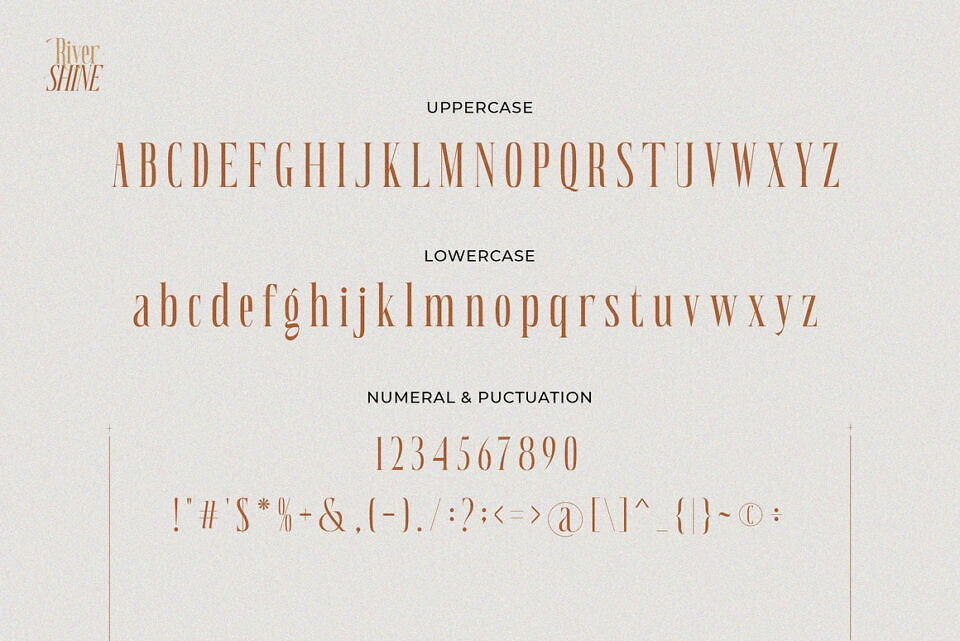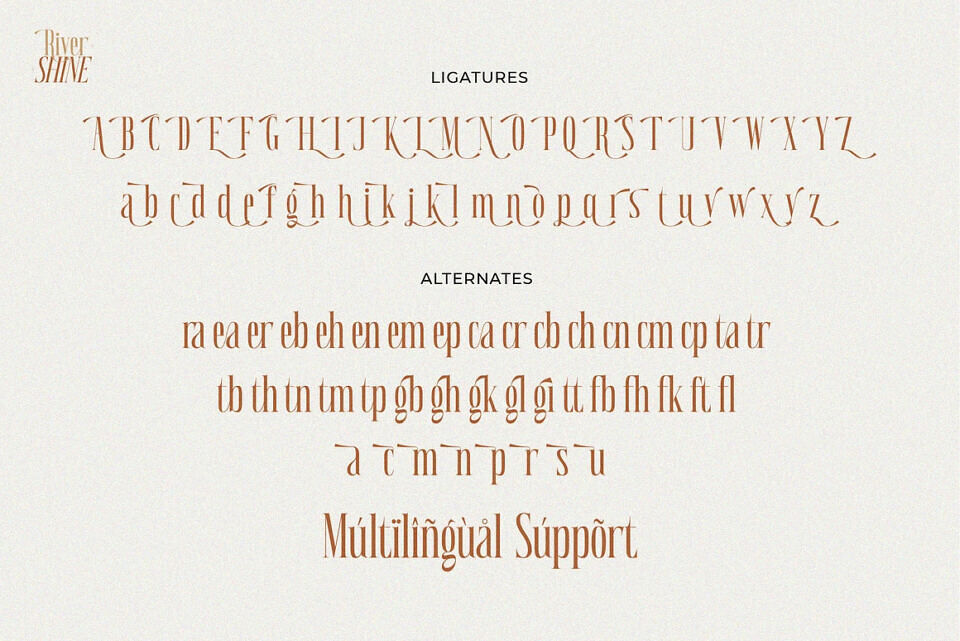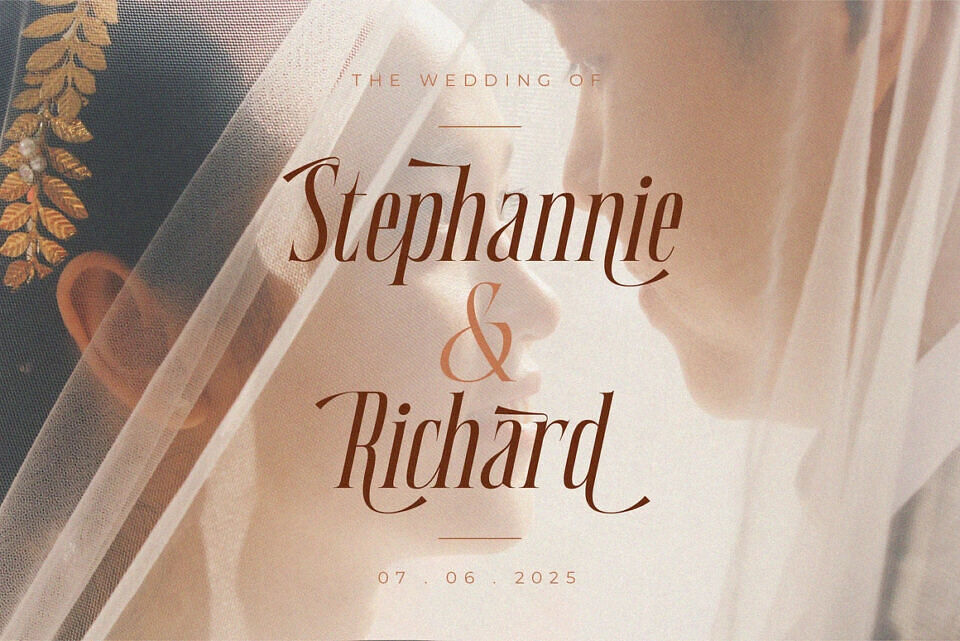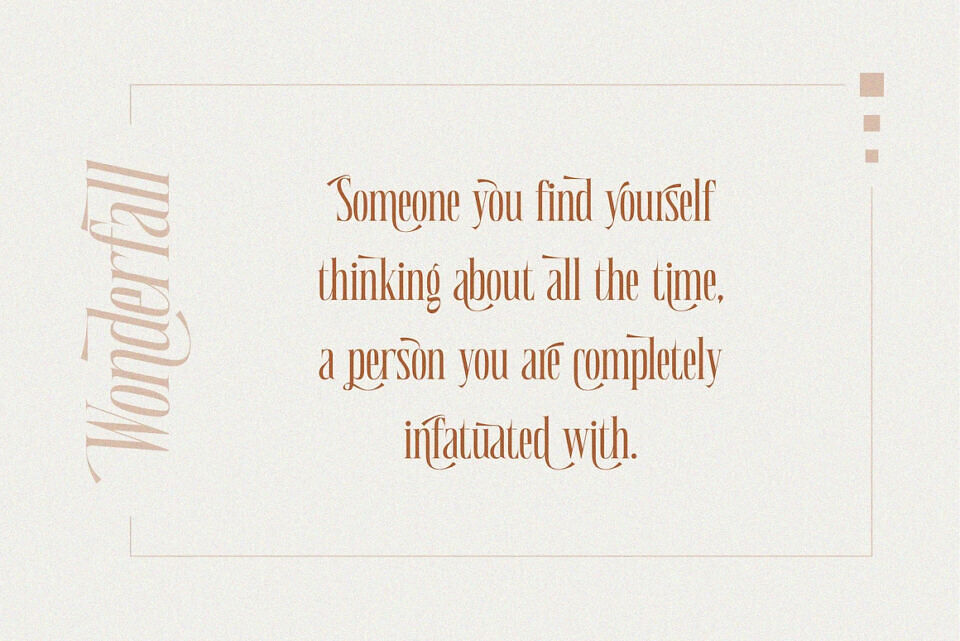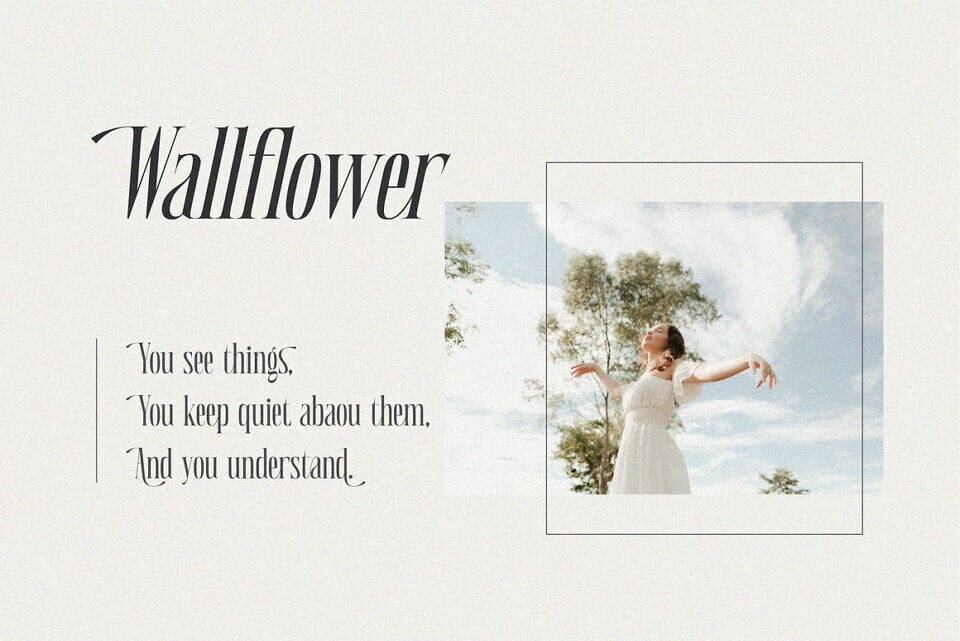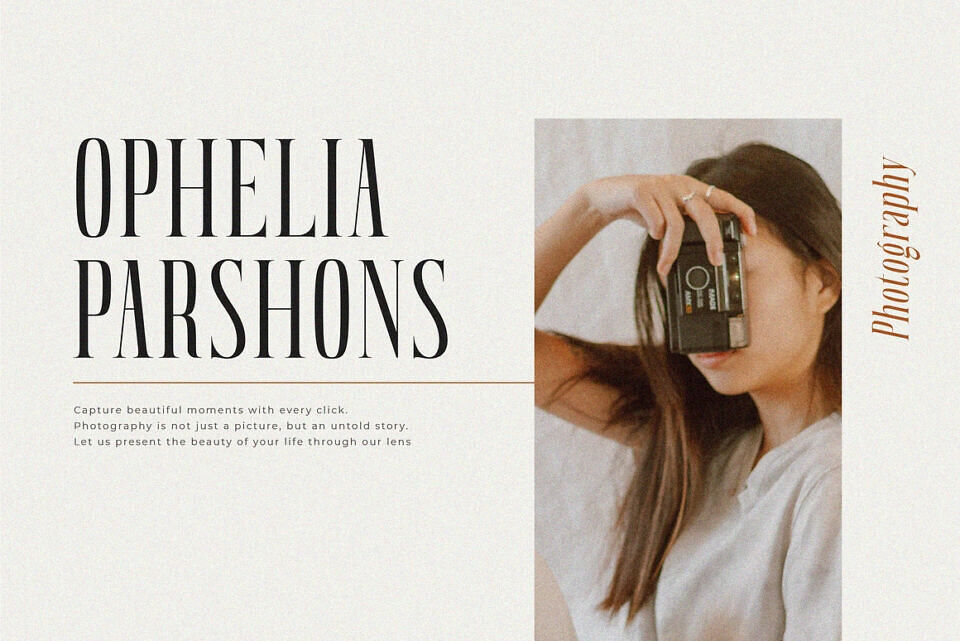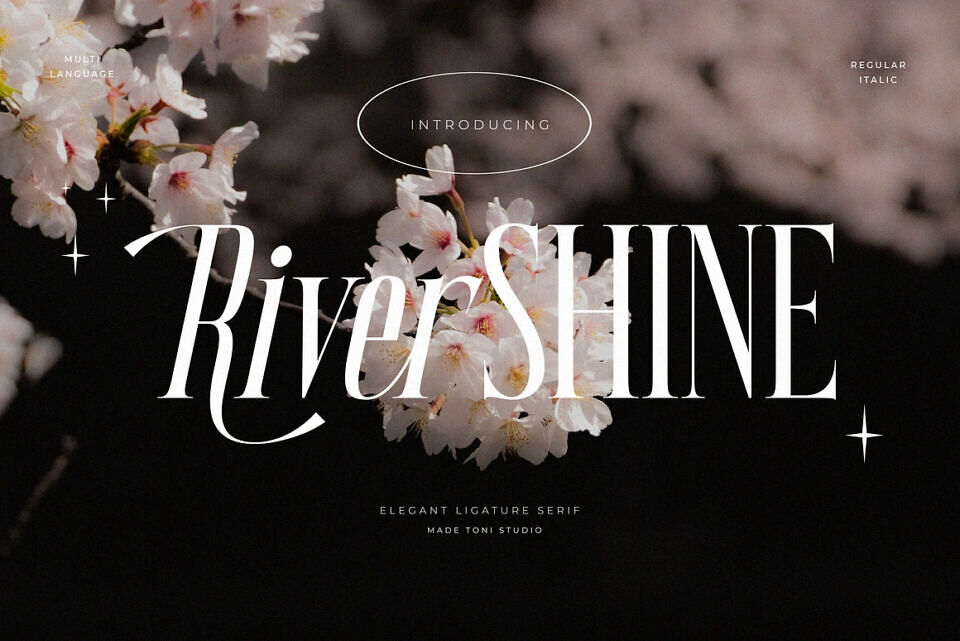
River Shine is a sophisticated and charming condensate font with a fashionable touch. This unique font is perfect for creating beautiful logotypes, stunning magazine designs, product packaging, invitations and more.
This font can be your solution in completing projects which is equipped with various alternatives and two different types. River Shine font is not only an homage to an iconic landmark but also the embodiment of timeless charm, perfect for bringing a touch of subtle grandeur to a variety of creative projects.